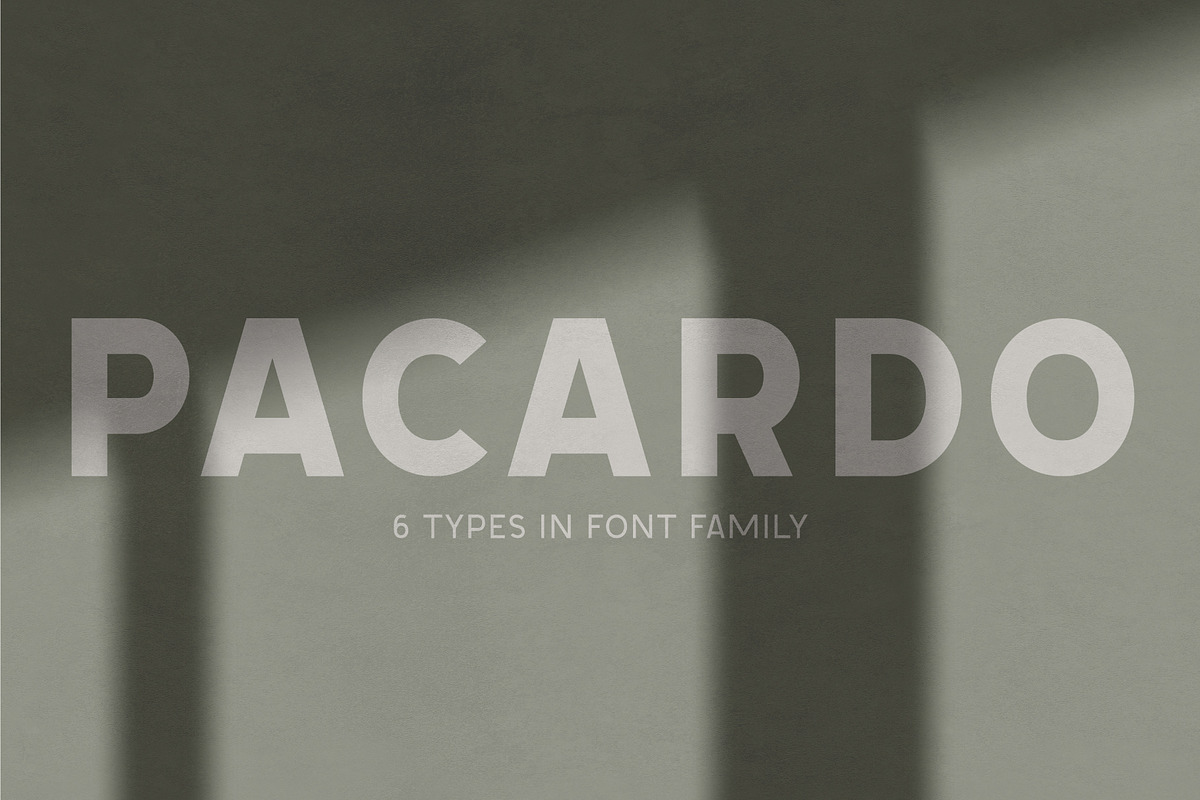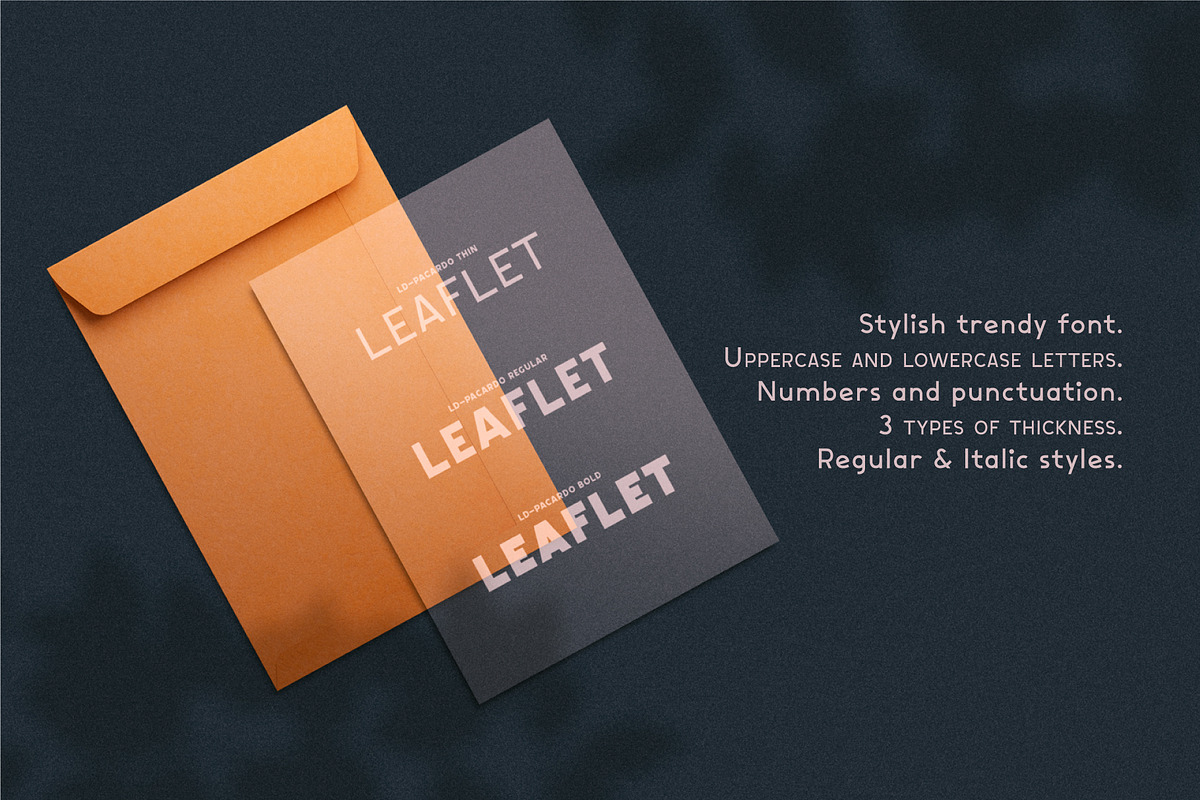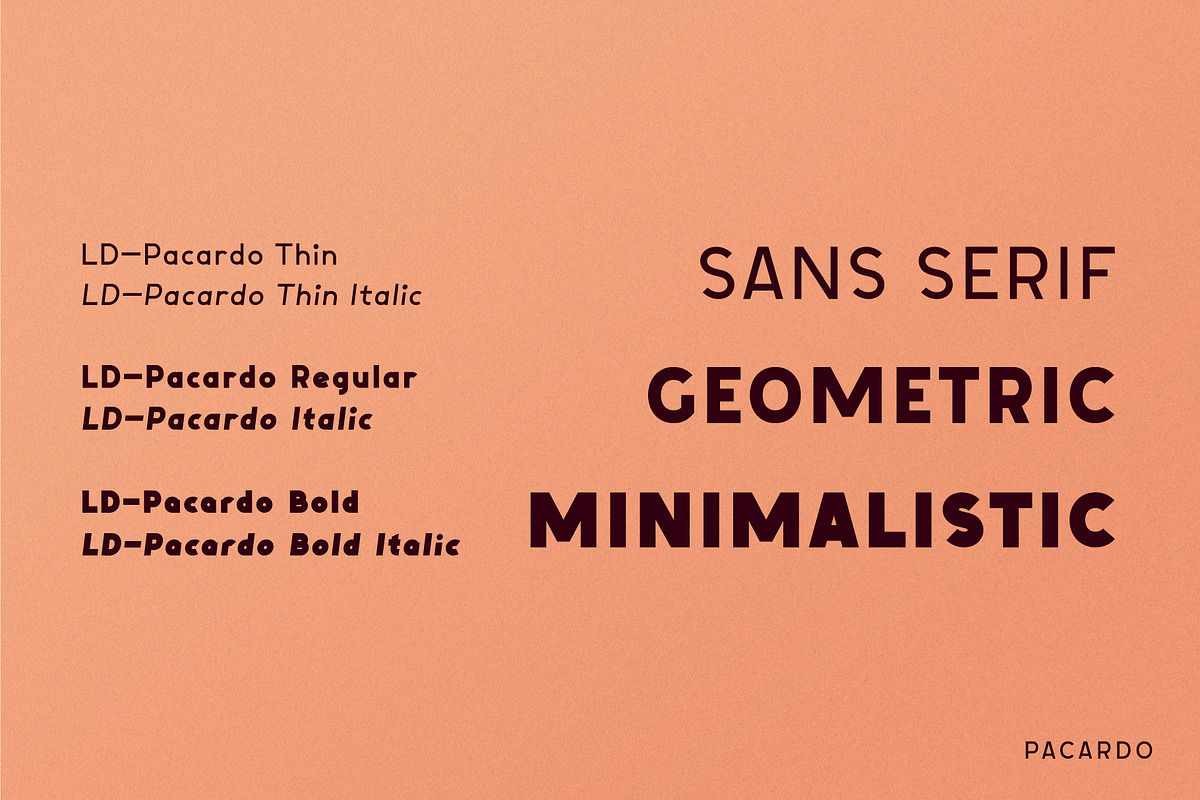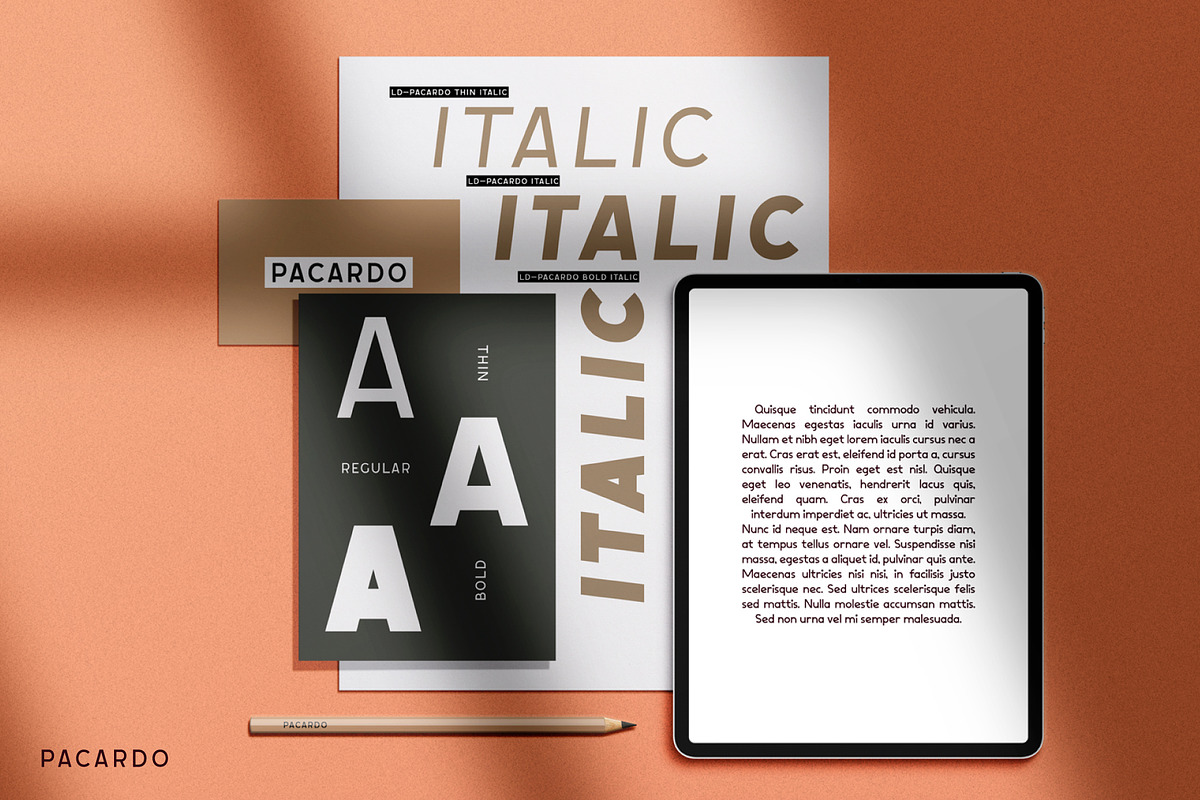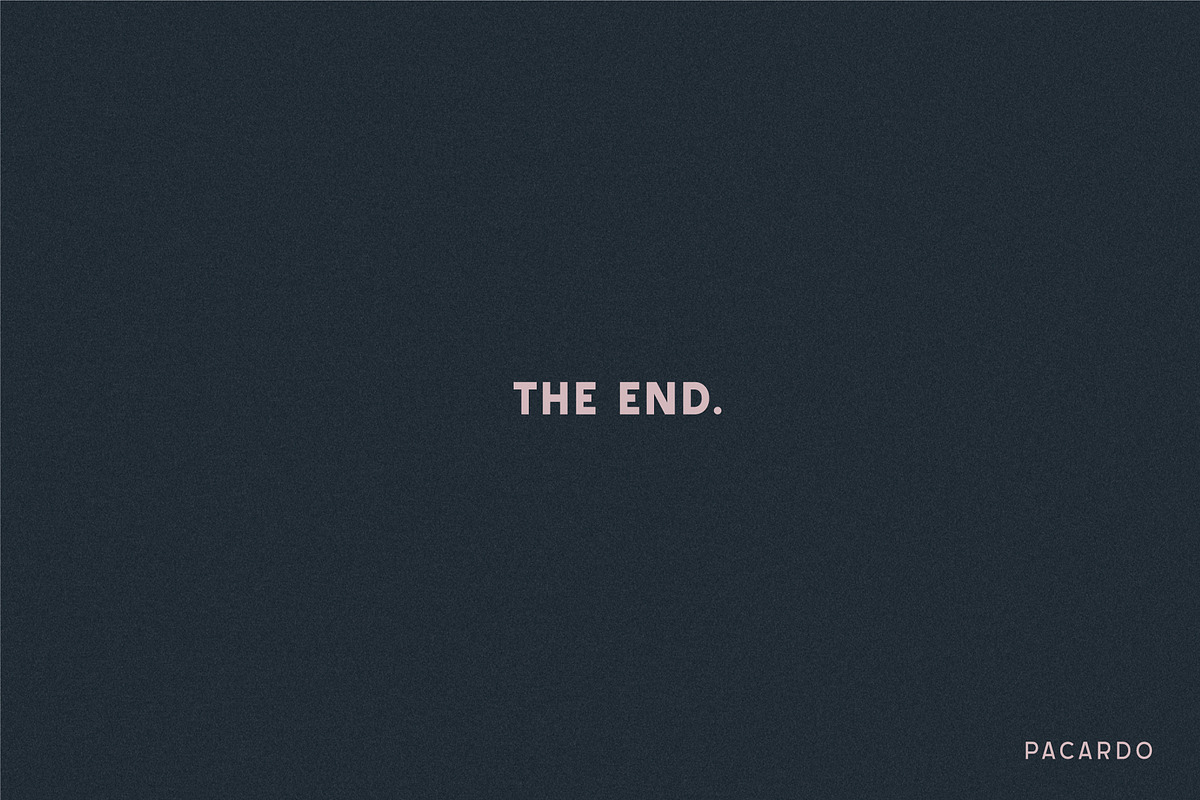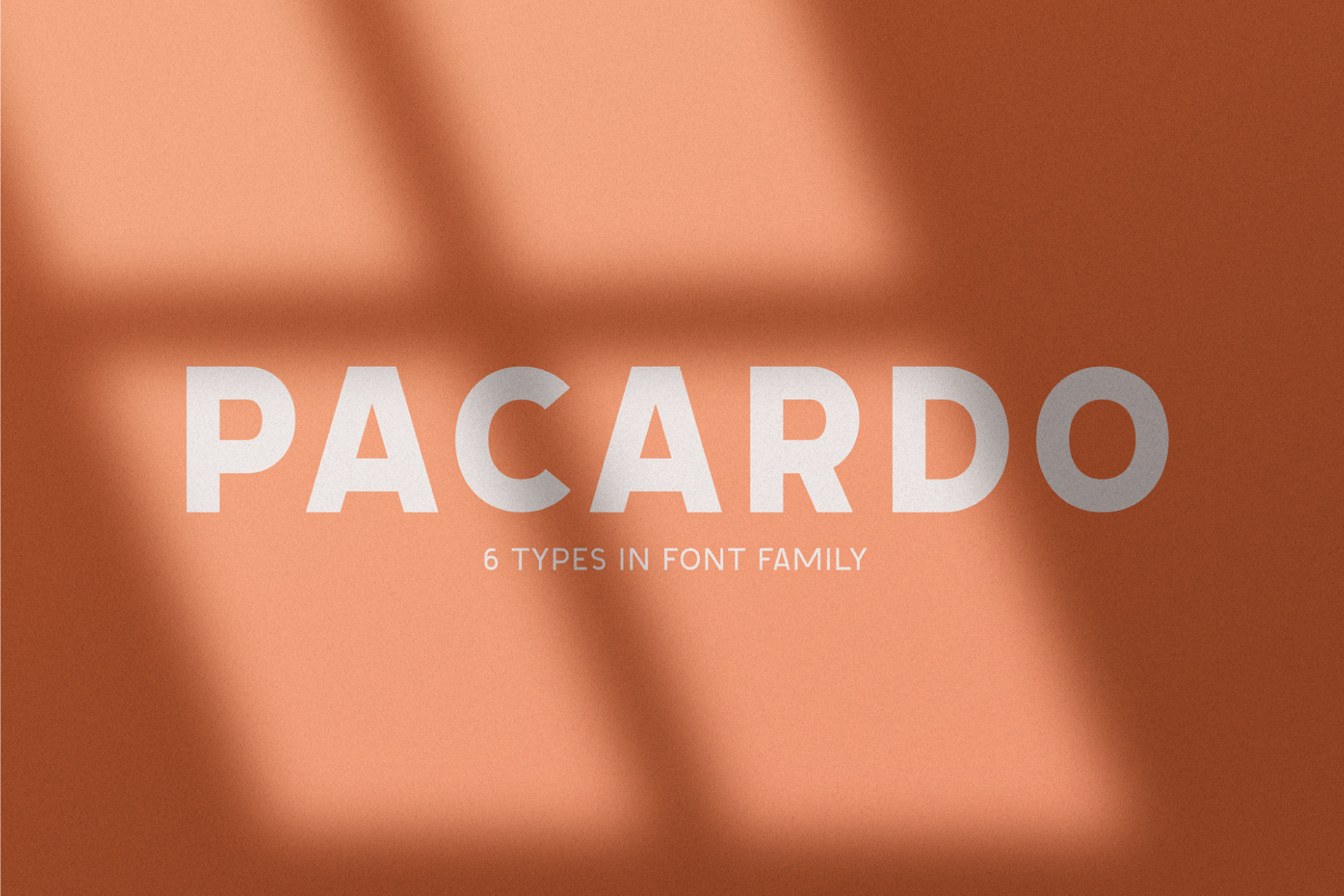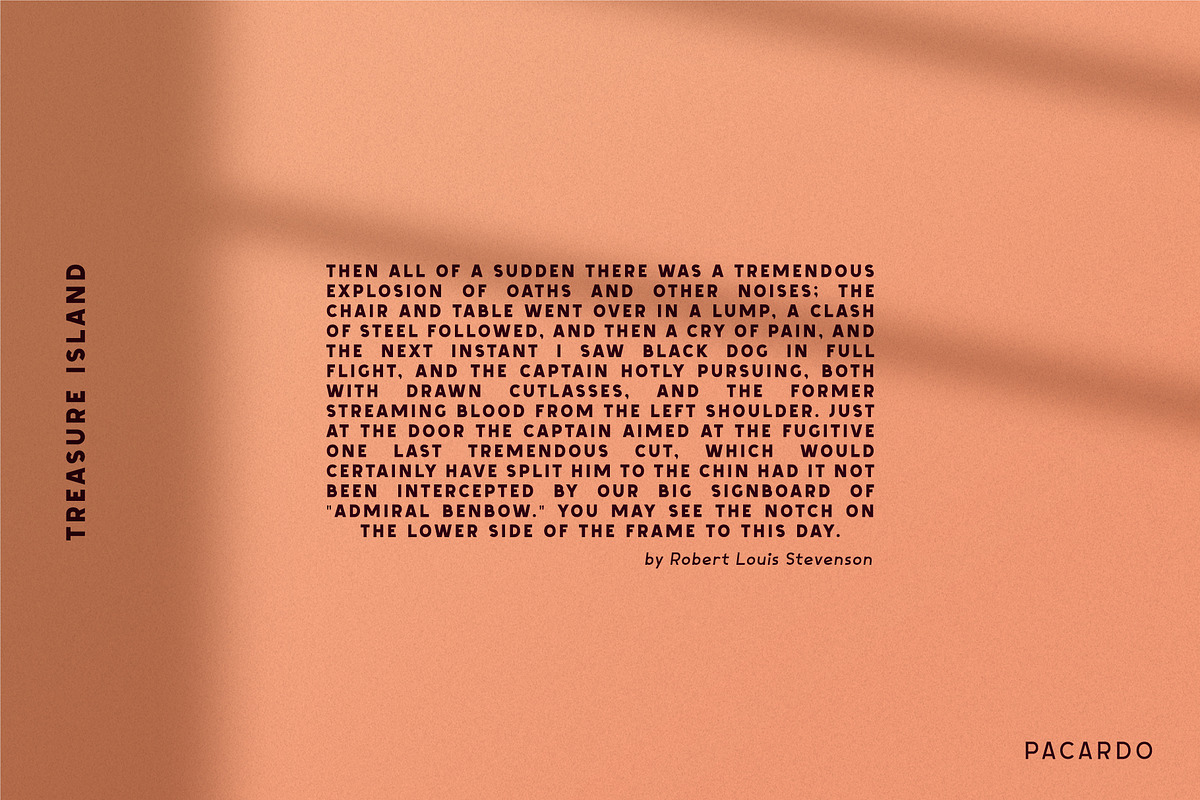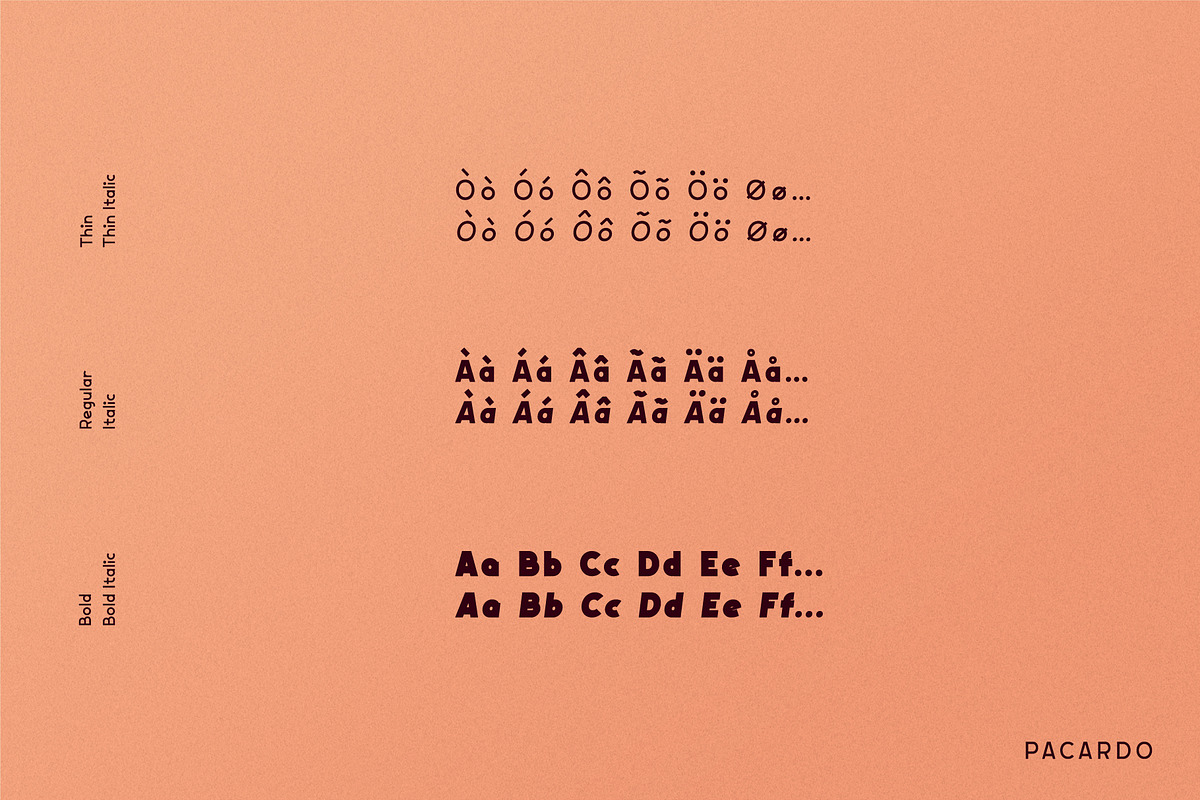
Pacardo. Sans Serif font family.
Introducing a clean geometric font family in Modernism style - Pacardo. Neat and at the same time provocative font attracts attention with its forms. New-fashioned font with original letters will perfectly complement both trendy abstract designs and designs in a retro style. Constructing letters with a bias towards heavier weights and contrast. Versatility of the typeface works well with designs in different styles.
- Geometric and Modern
- 6 fonts in family:
- Thin, Thin Italic
- Regular, Italic
- Bold, Bold Italic
- Kerning